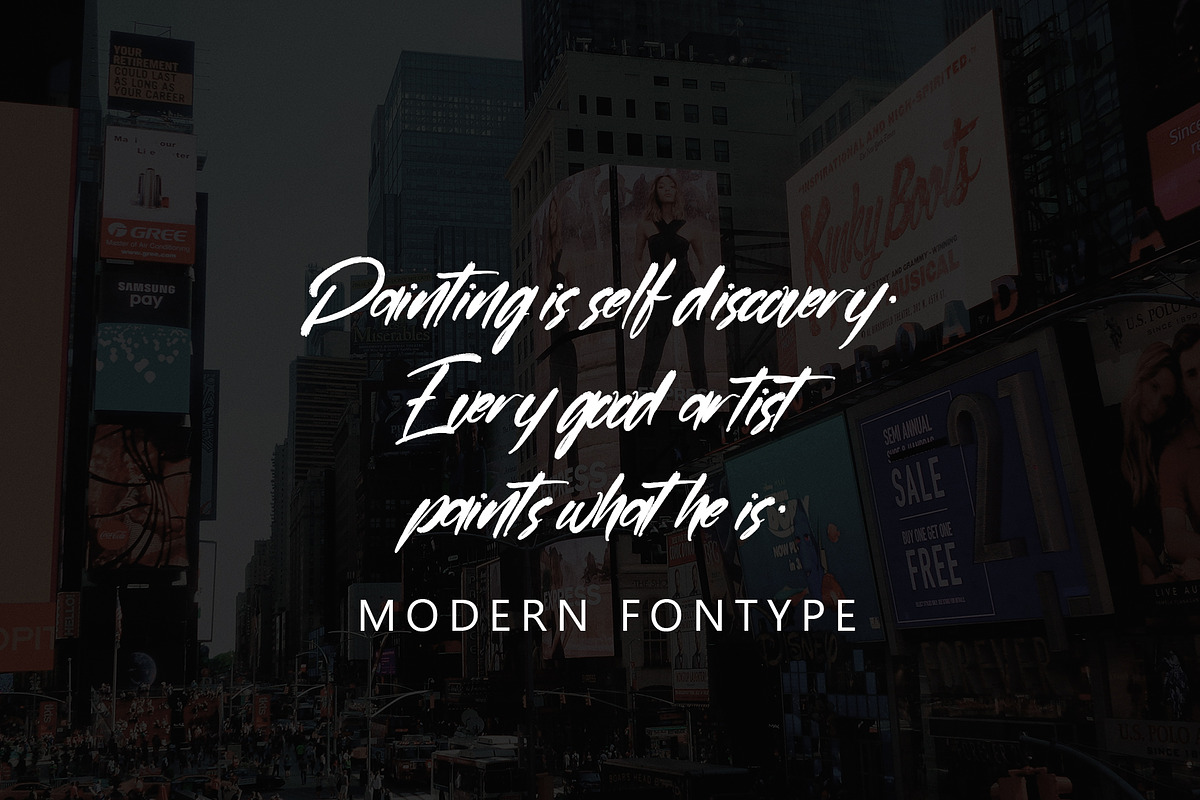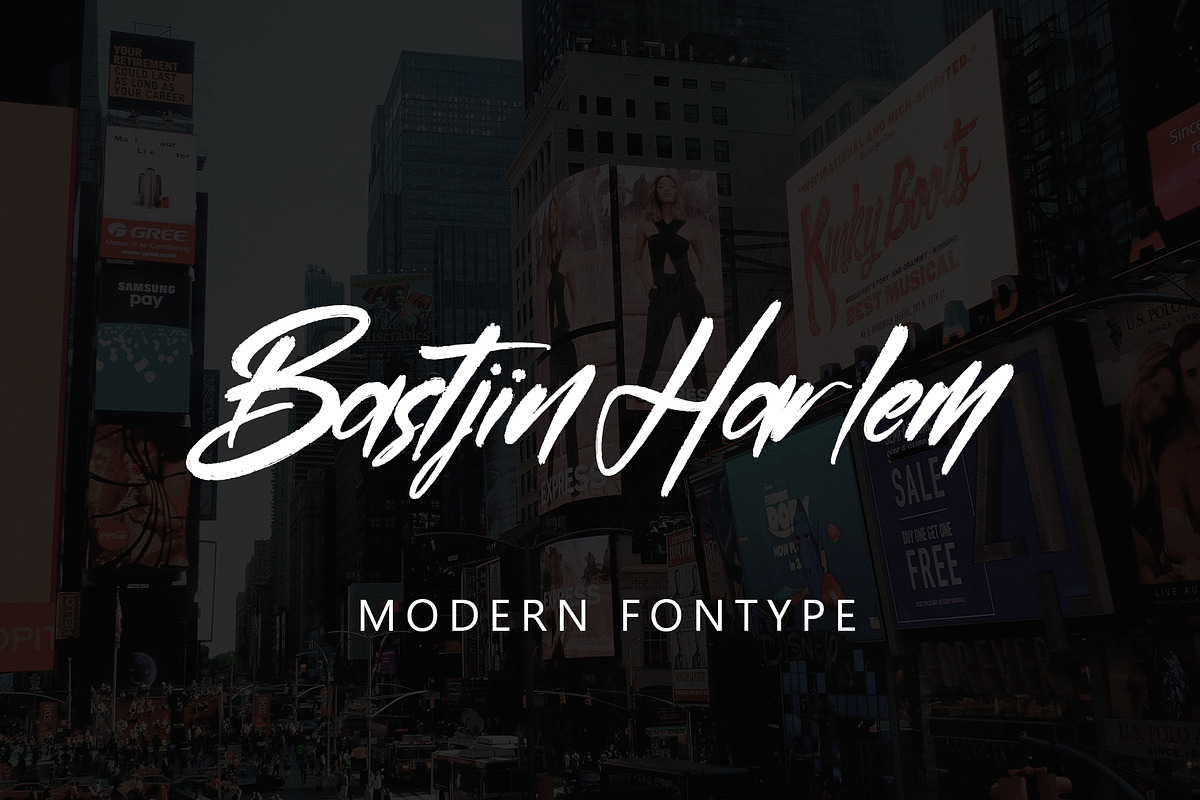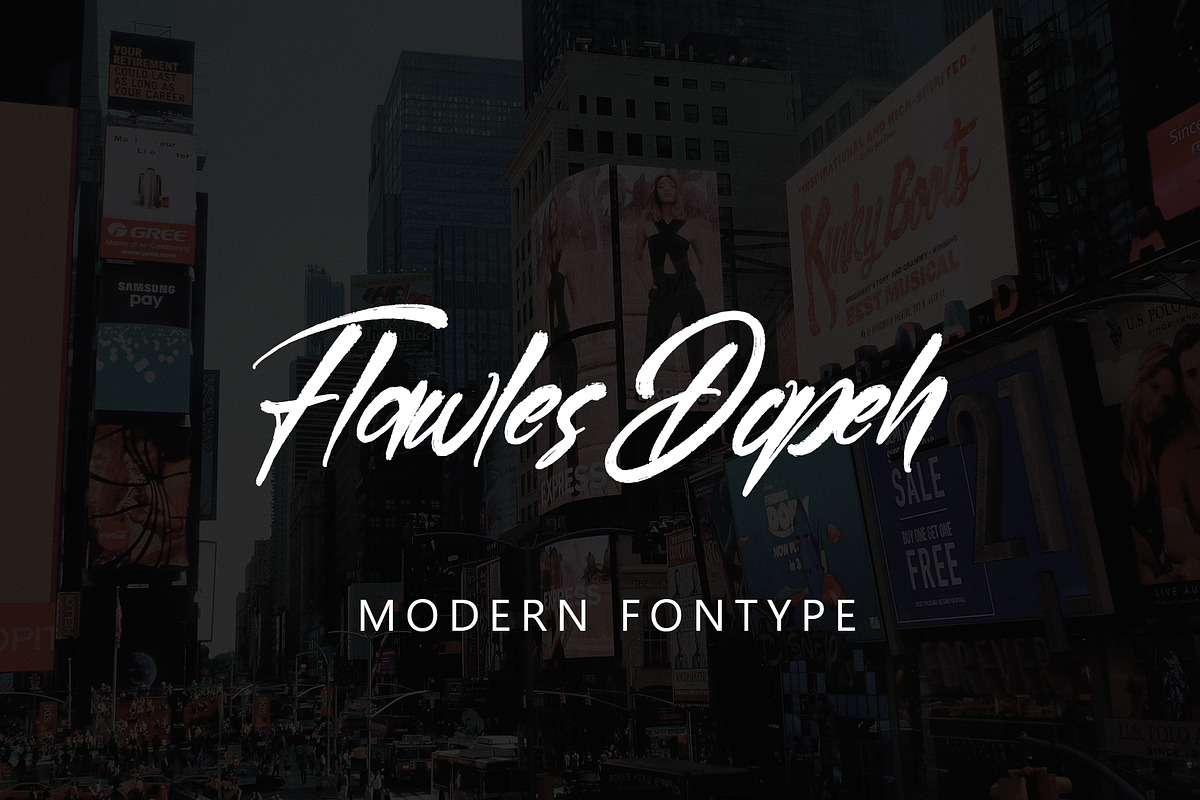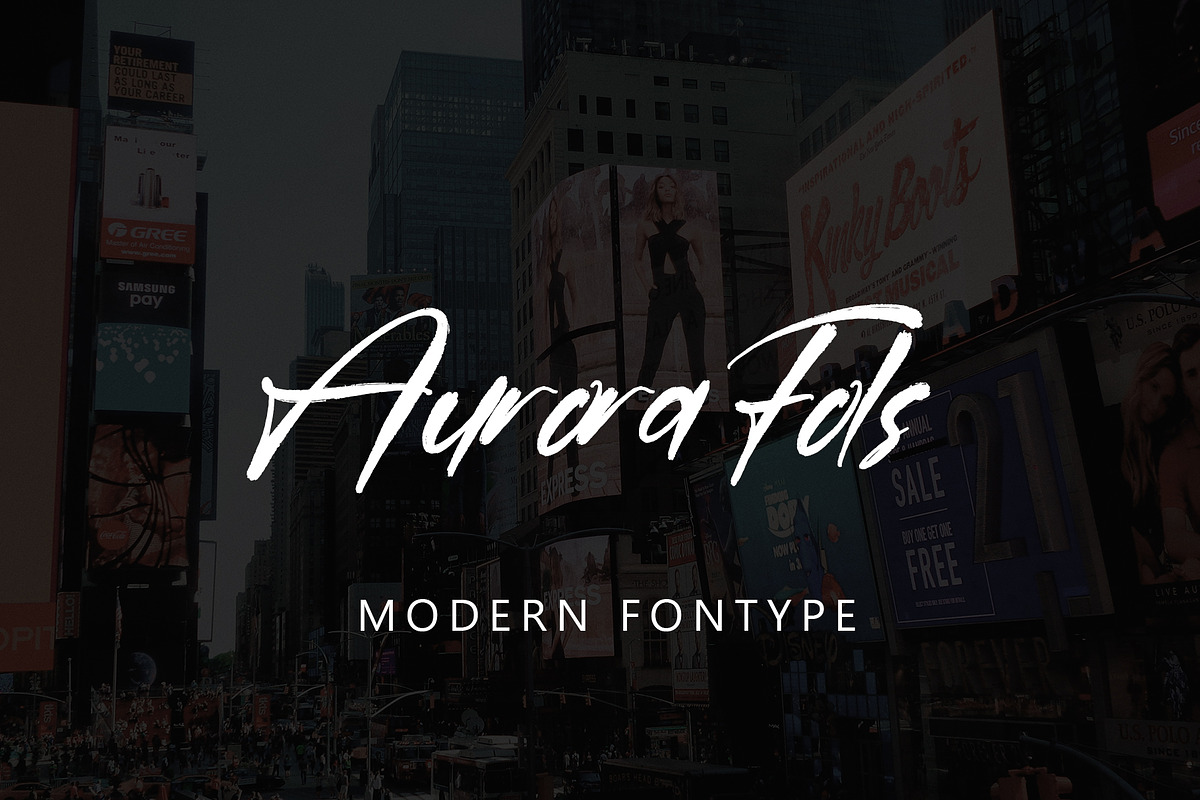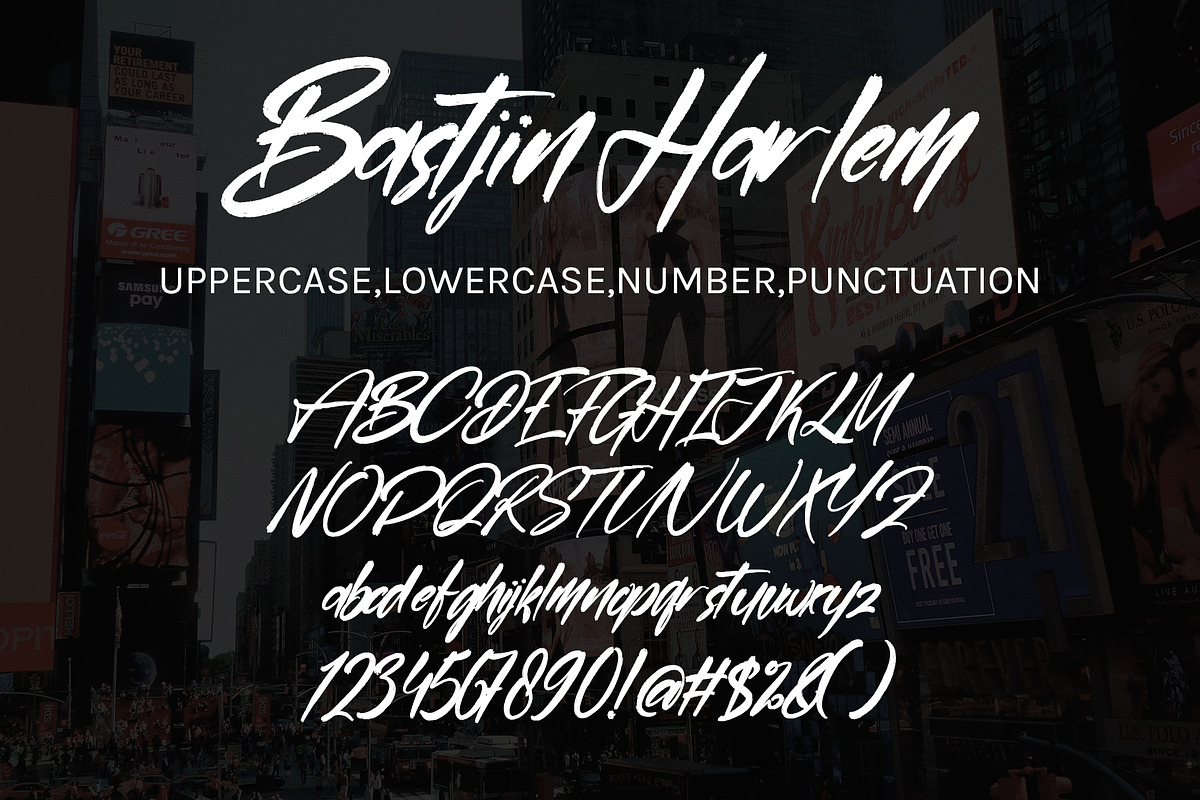
Bastijin Harlem
Bastijin Harlem with new style, this font will perfect for many different project ex: quotes, logo, blog header, poster, banding, letter, invitation, stationery, etc...